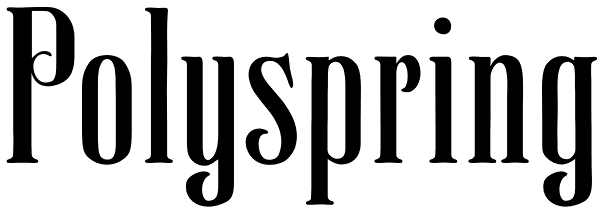
Polyspring
Polyspring is a handcrafted serif display font, with a cool flowery flair. It was hand-drawn based on Italia Condensed typeface from Keystone Foundry from circa 1906. Loaded with stylish ornaments and flourishing alternates for all its letters and...